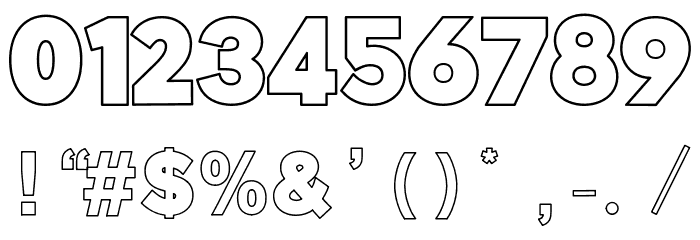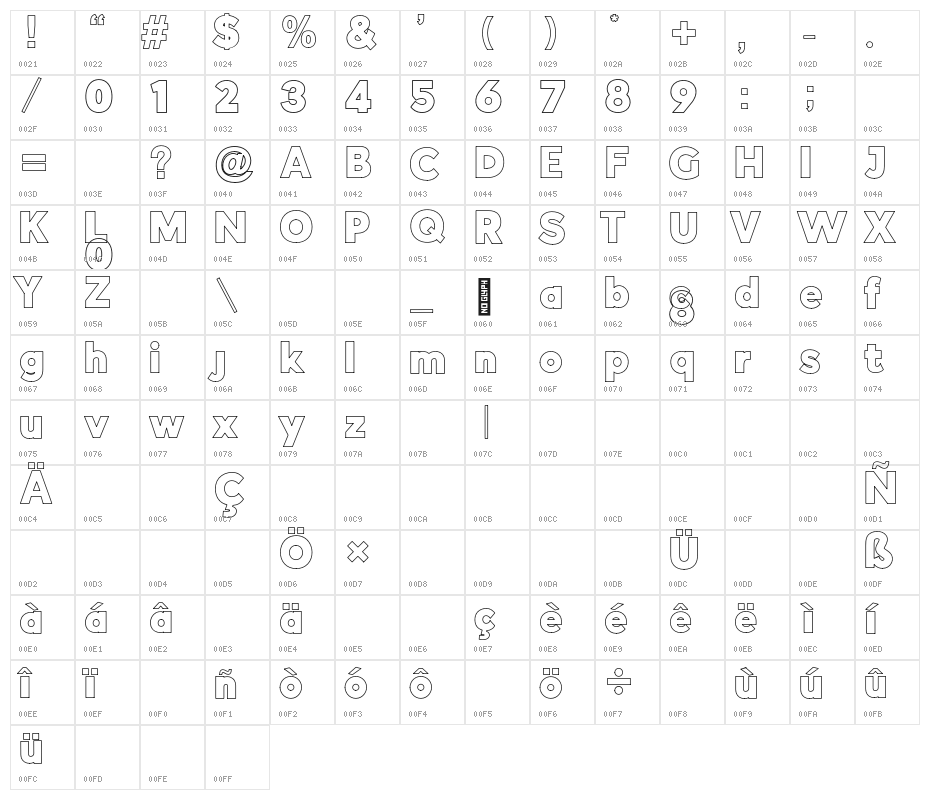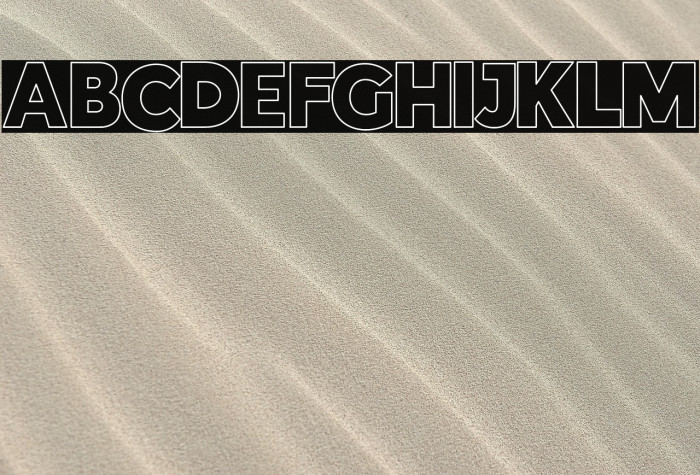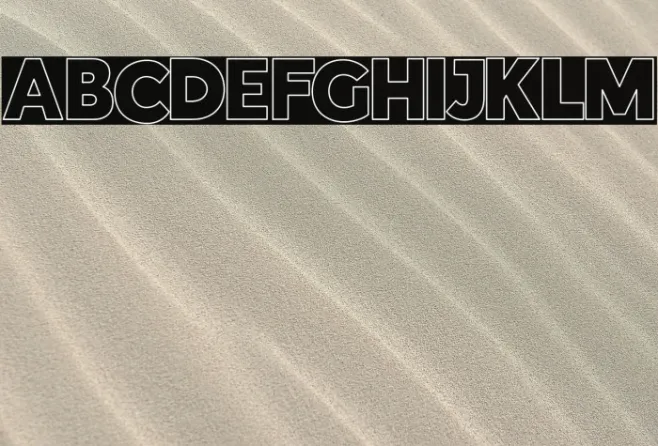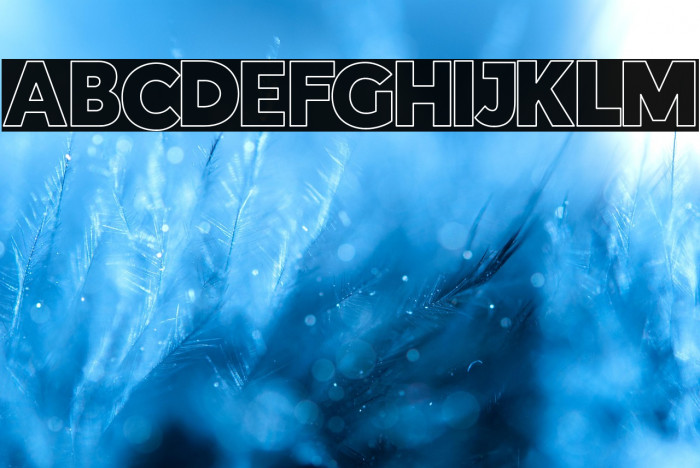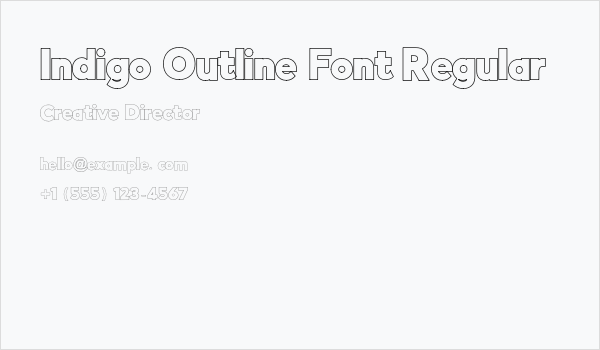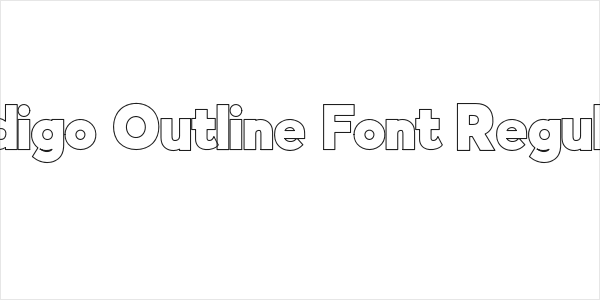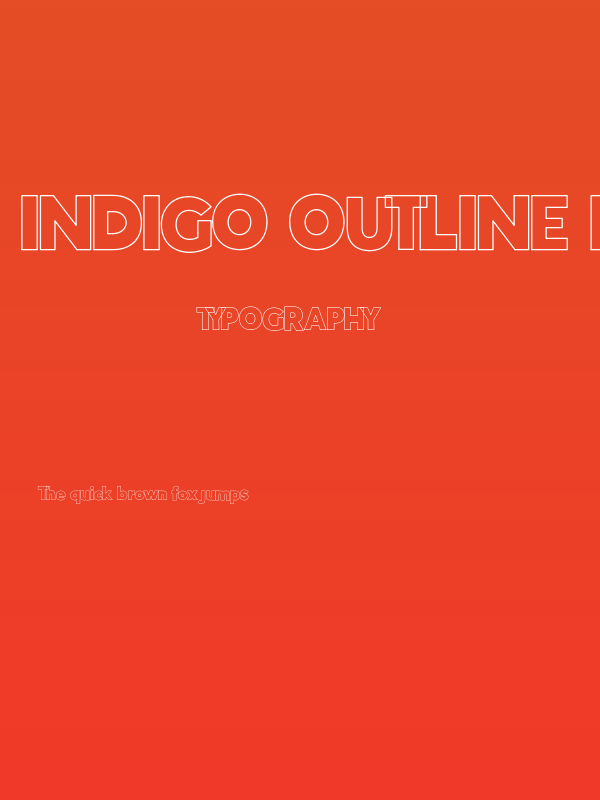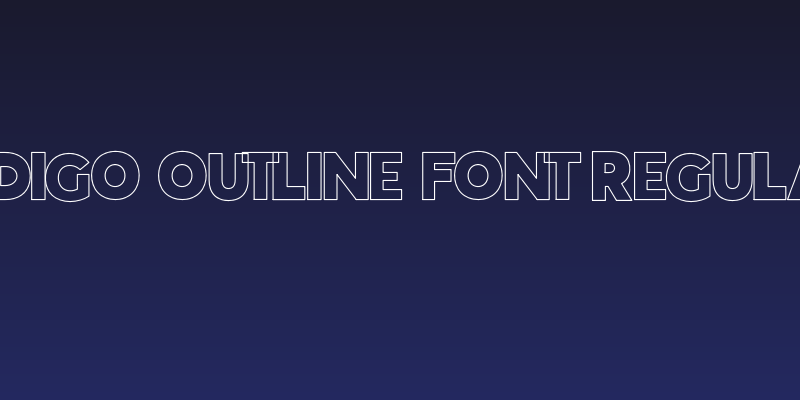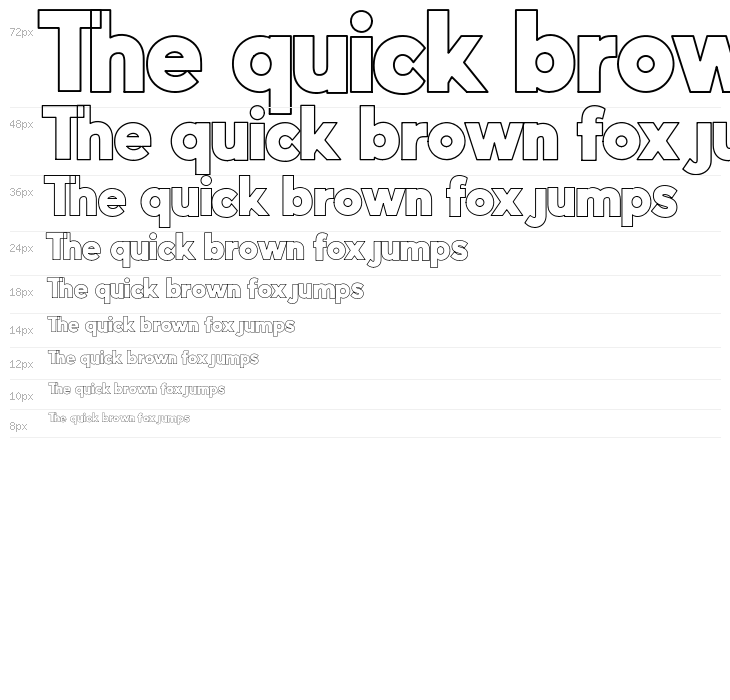
Indigo Outline Font Regular Font
Indigo Outline Font Regular Description
This font features a bold, geometric sans-serif style with a distinct outline effect. The characters are uniform in width, creating a balanced and modern appearance. The uppercase and lowercase letters maintain a consistent height, contributing to a clean and structured look. The numerals are clear and easily readable, while the special characters are well-defined, making them suitable for various design applications. The outline style adds a unique touch, allowing for creative layering and color usage in design projects.
| Proposed Projects | Ideal for headlines, posters, branding, and any design project requiring a modern and eye-catching typeface. |